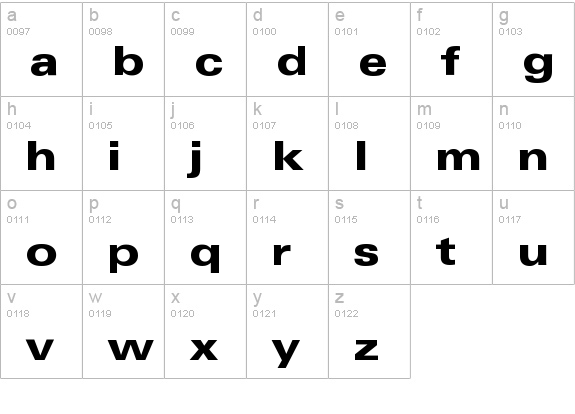
Nova Black Expanded SSi Black Expanded Font Details
Nova Black Expanded SSi Black Expanded is a maximum-weight, dramatic, extended-width variant in the Nova typeface family \xE2\x80\x94 well suited to maximum-impact headlines, posters, and packaging.
The Nova Black Expanded SSi Black Expanded font is a bold and impactful typeface that commands attention. Its sleek and modern design makes it perfect for headlines, posters, and other display purposes. With its generous letter spacing and strong vertical emphasis, this font exudes a sense of power and authority. Best of all, this font is available for free download at FontsMarket.com, making it a valuable addition to any designer's toolkit. Whether you're working on a branding project, creating eye-catching advertisements, or designing a striking logo, Nova Black Expanded SSi Black Expanded font is sure to make a bold statement. Download it today and unleash your creativity with this versatile and dynamic typeface.